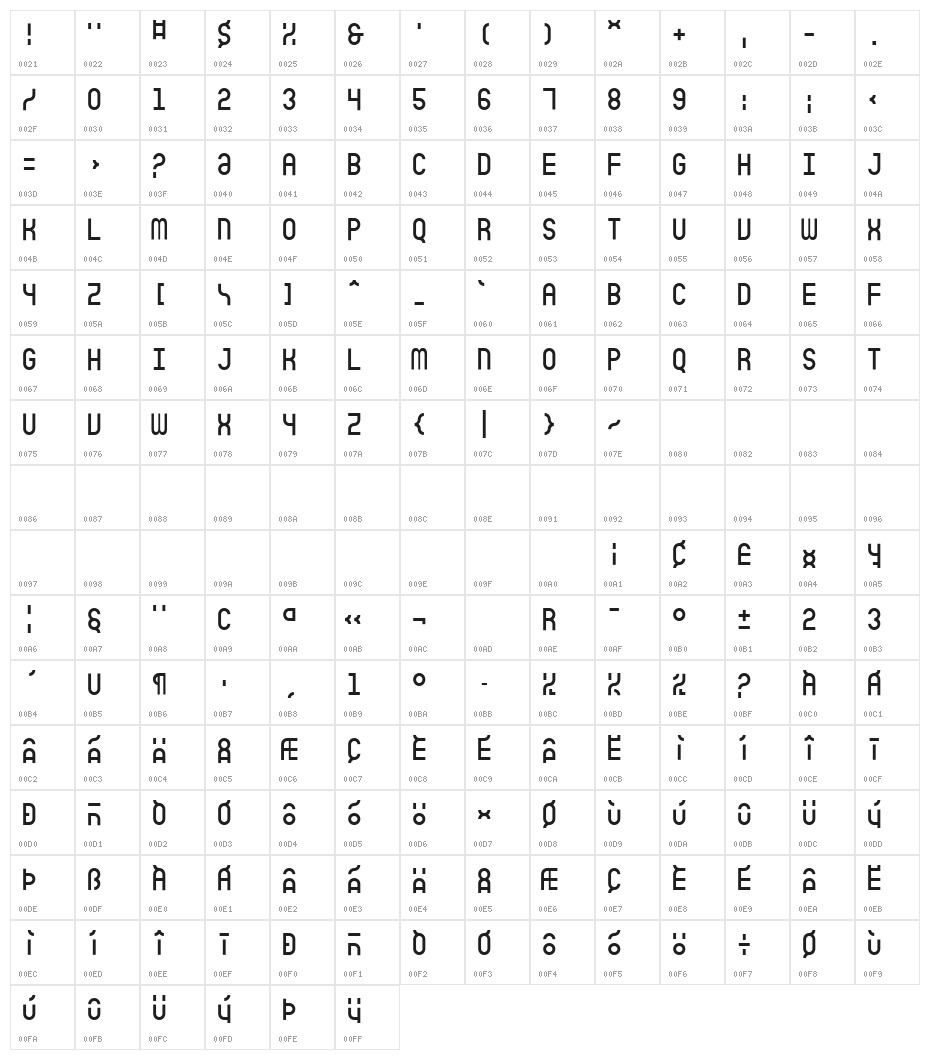
SicretMonoPERSONAL Font
SicretMonoPERSONAL Description
This font features a clean, geometric design with uniform stroke widths, giving it a modern and technical appearance. The characters are monospaced, ensuring each letter and number occupies the same horizontal space, which is ideal for coding and tabular data. The uppercase and lowercase letters maintain a consistent height, contributing to its orderly and structured look. The numerals are clear and easily distinguishable, enhancing readability. Special characters are designed with simplicity and clarity, making them suitable for various applications.
| Proposed Projects | Ideal for coding environments, technical documentation, and data tables. |